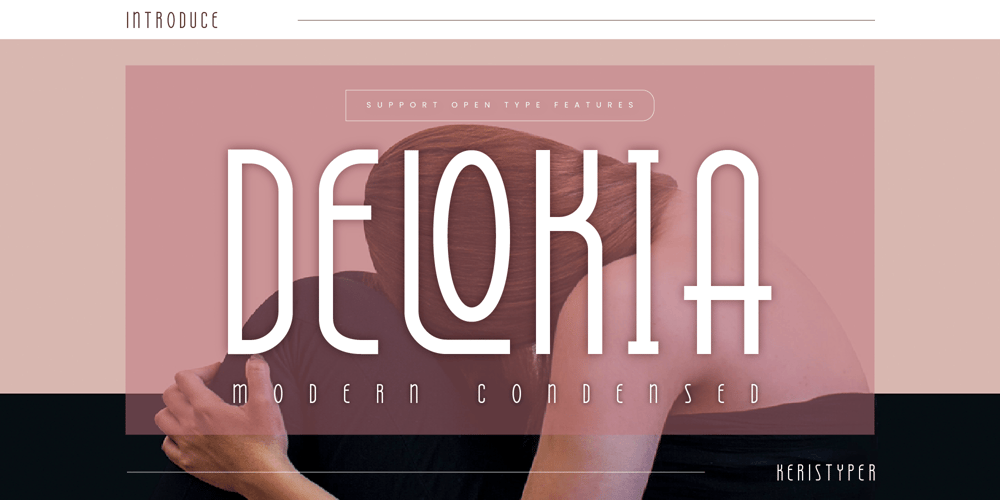
Delokia Font Family was designed by Tezar Tantular and published by Keristyper Studio. Delokia contains 1 styles and family package options. **Delokia** is a condensed font with visual elegance, and smooth curves make your work look true and attractive. This font is good for logo design, Social media, Movie Titles, Books Titles, short text even long text letters, and good for your secondary text font with script, sans, or serif.**Featured:*** Standard Uppercase & Lowercase* Numeral & Punctuation* Multilingual : ä ö ü Ä Ö Ü ß ¿ ¡* Alternate & Ligature* PUA encodedWe recommend programs that support the OpenType feature and the Glyphs panel such as Adobe applications or Corel Draw. so you can use all the variations of the glyphs.Hope you enjoy our fonts!